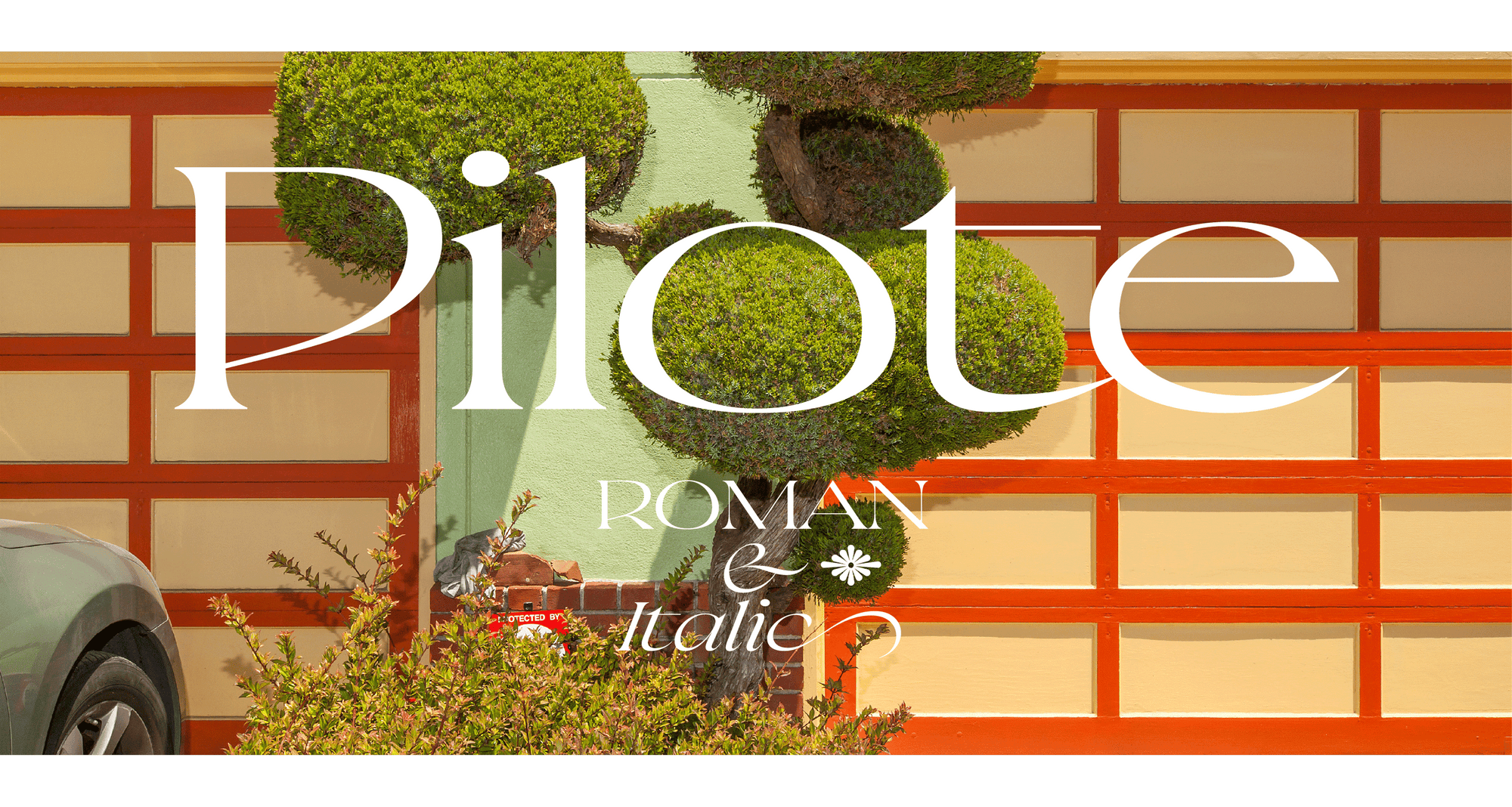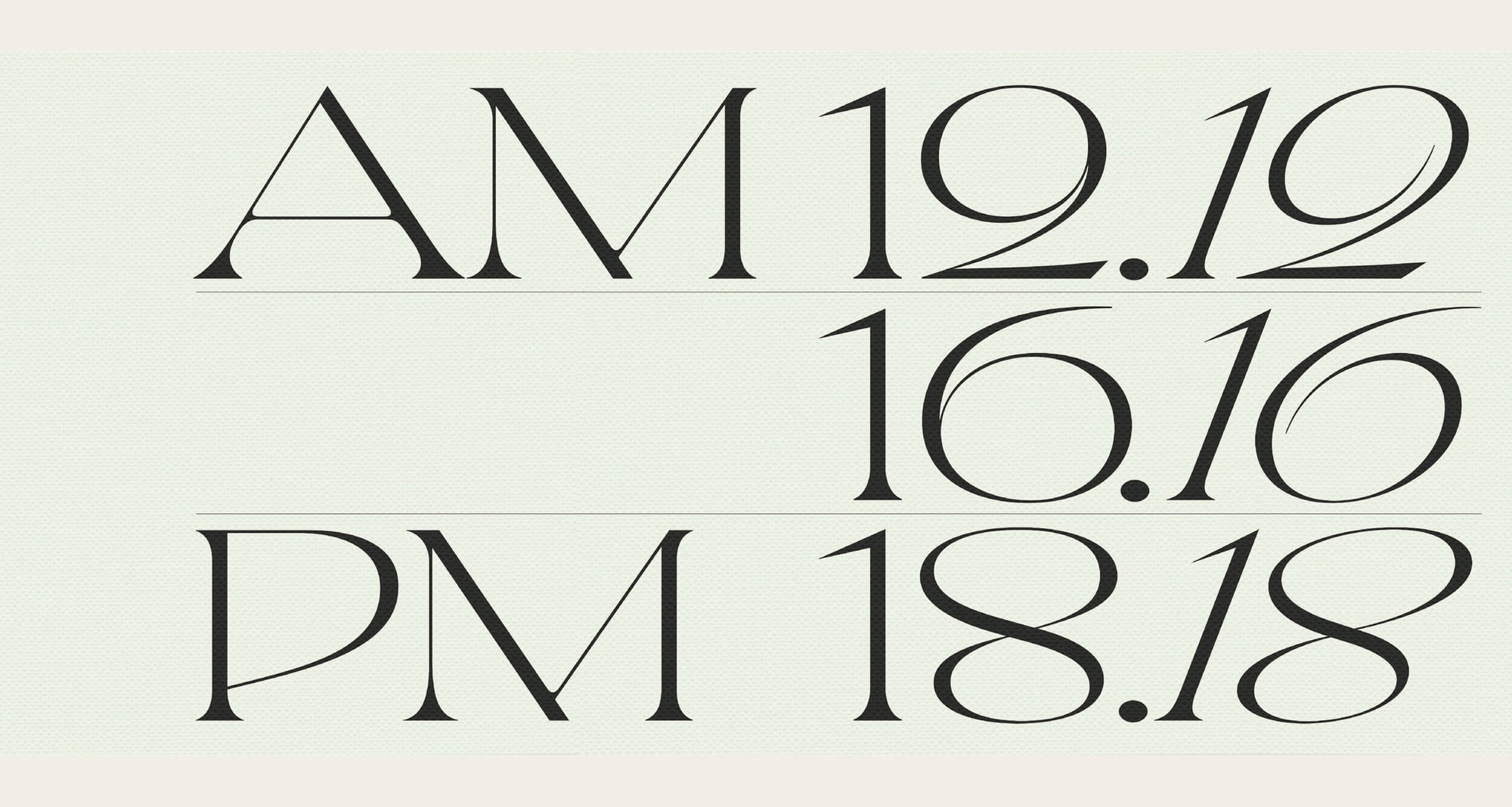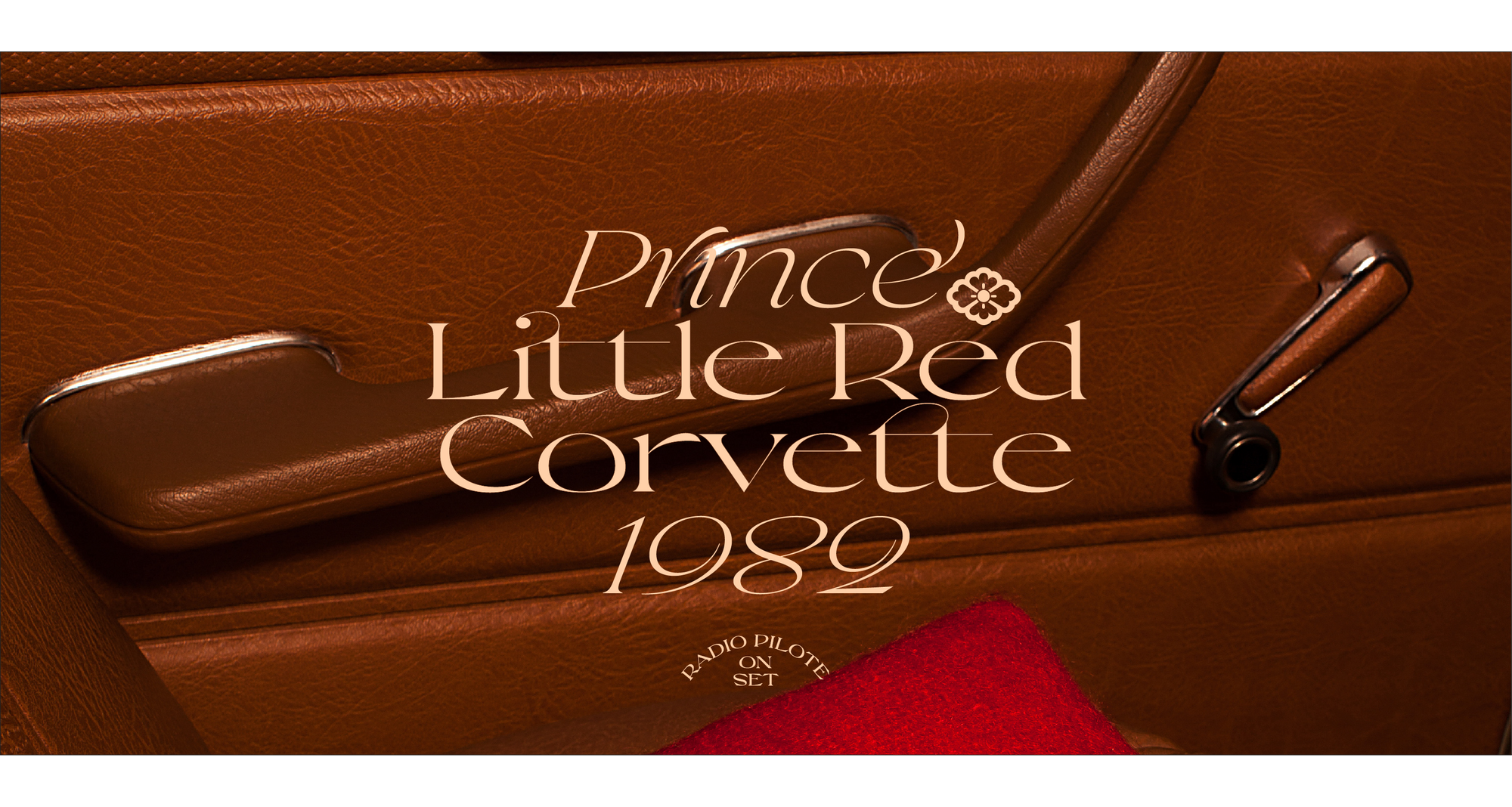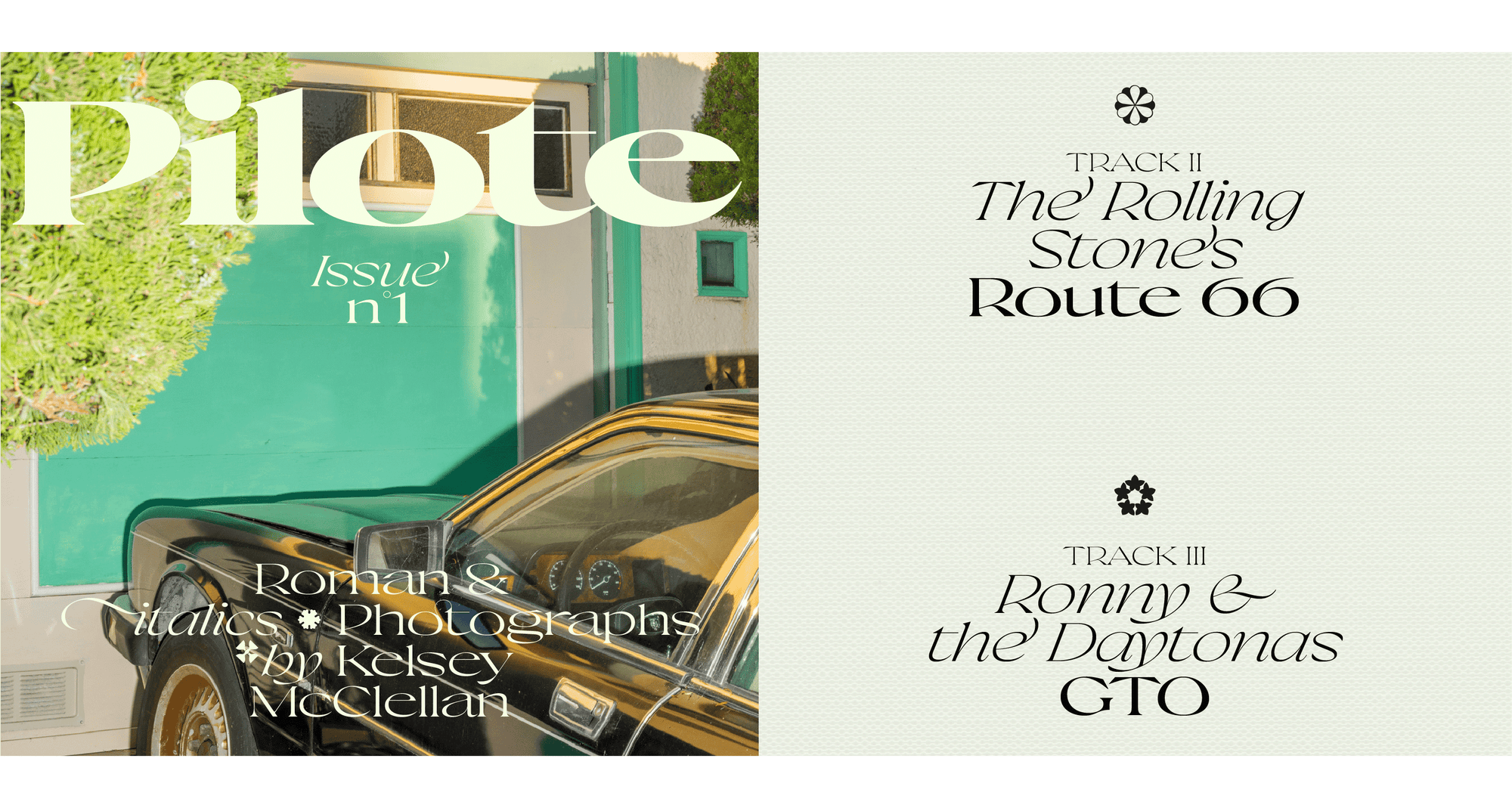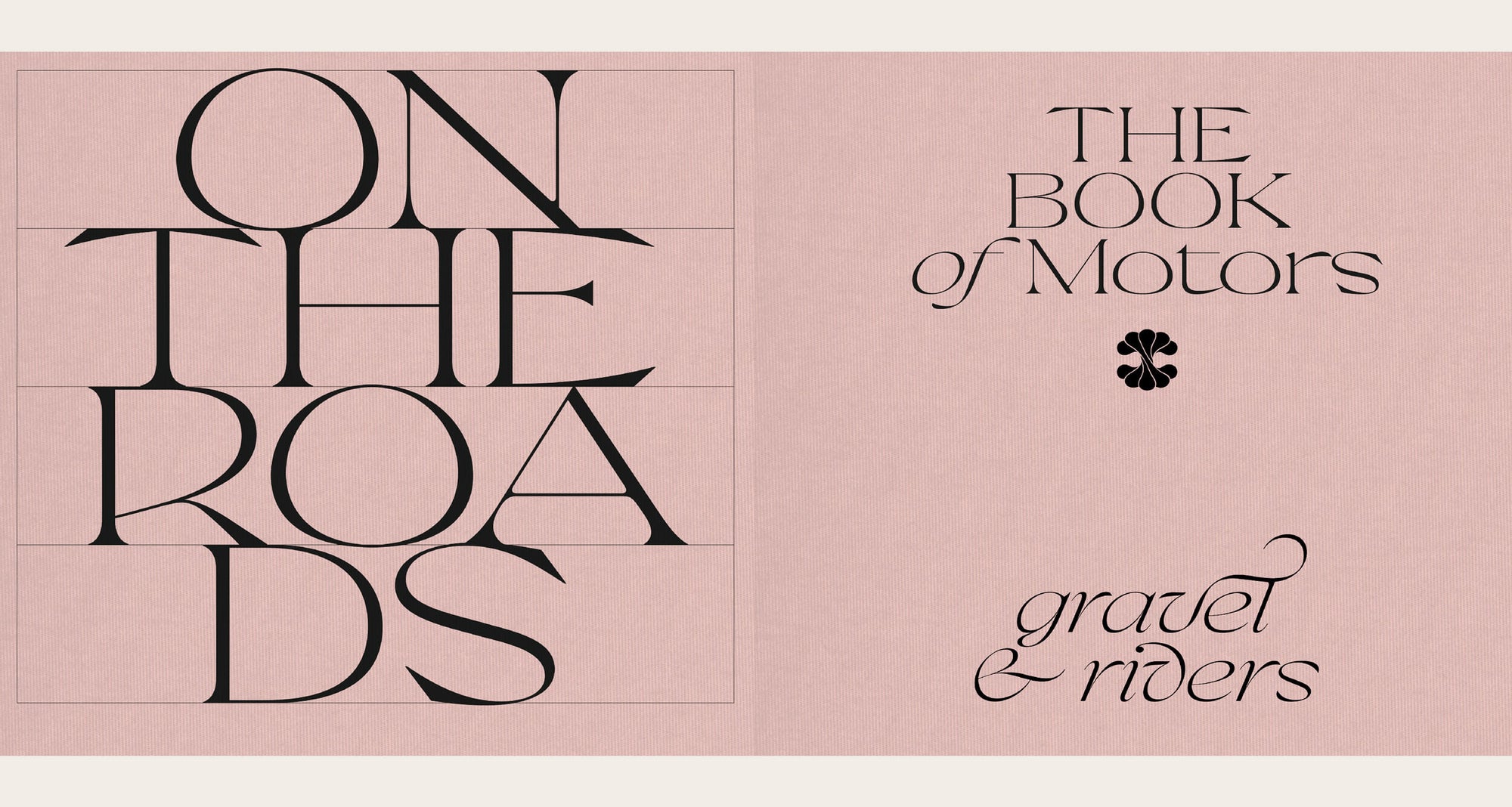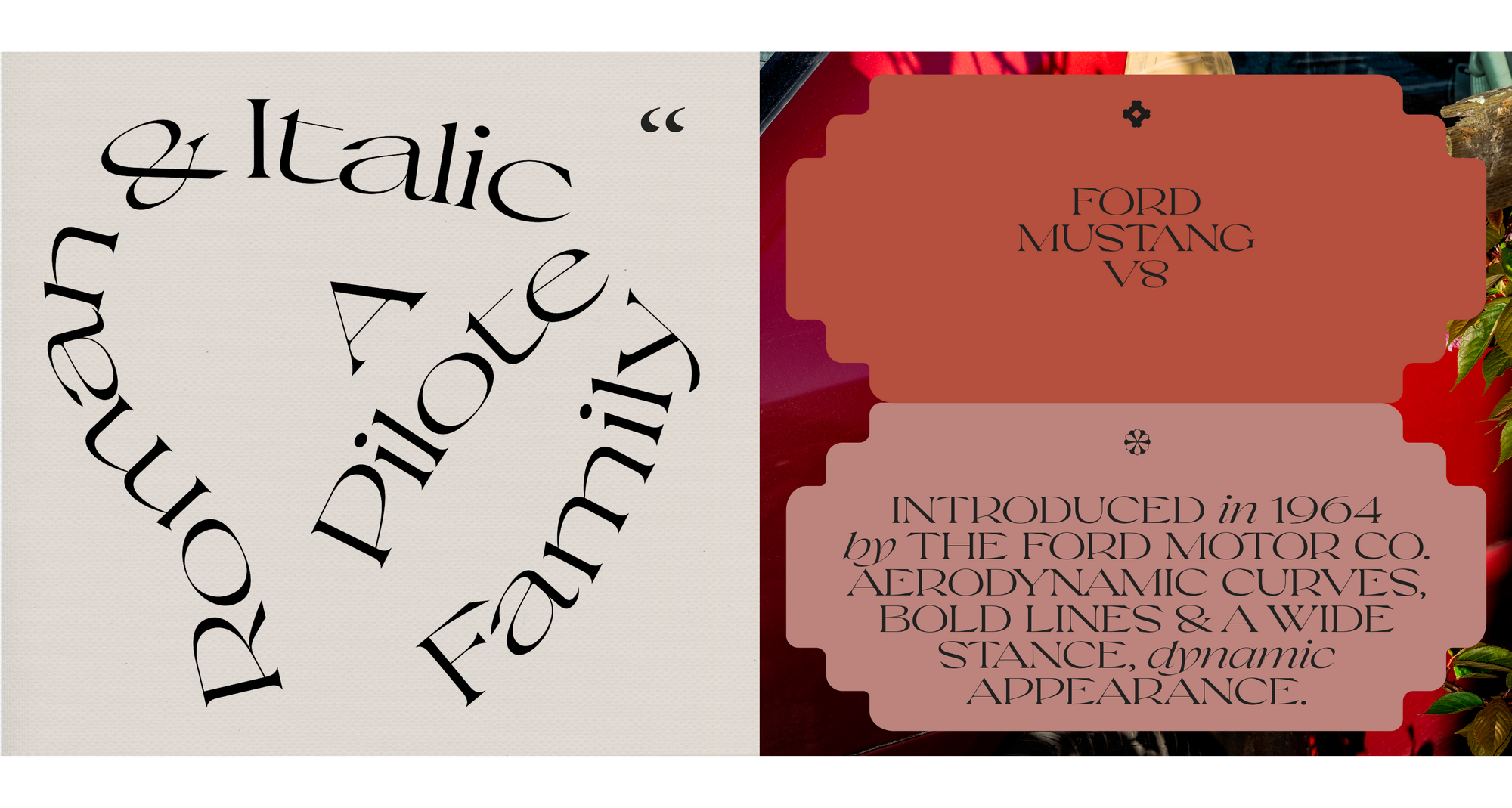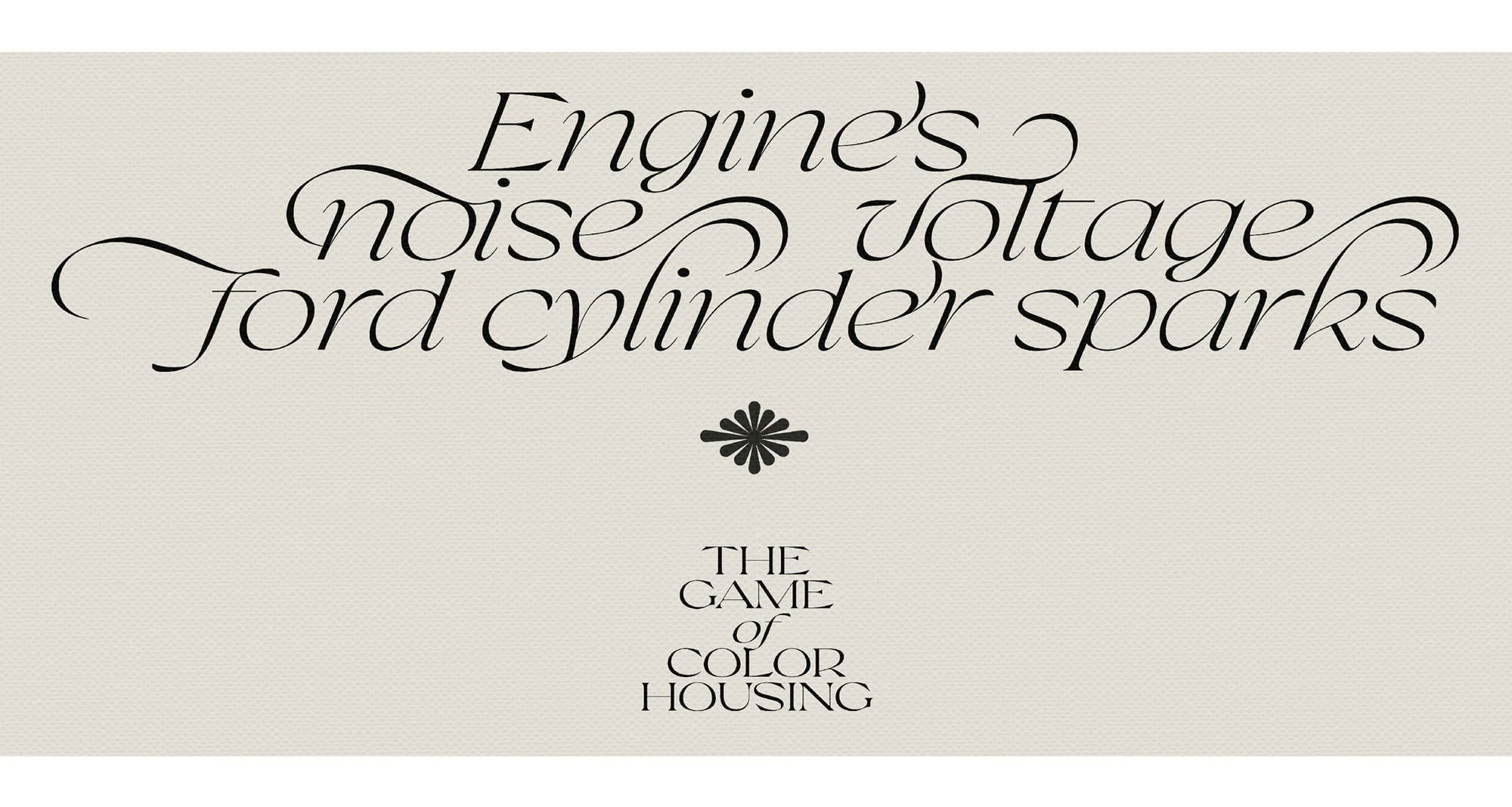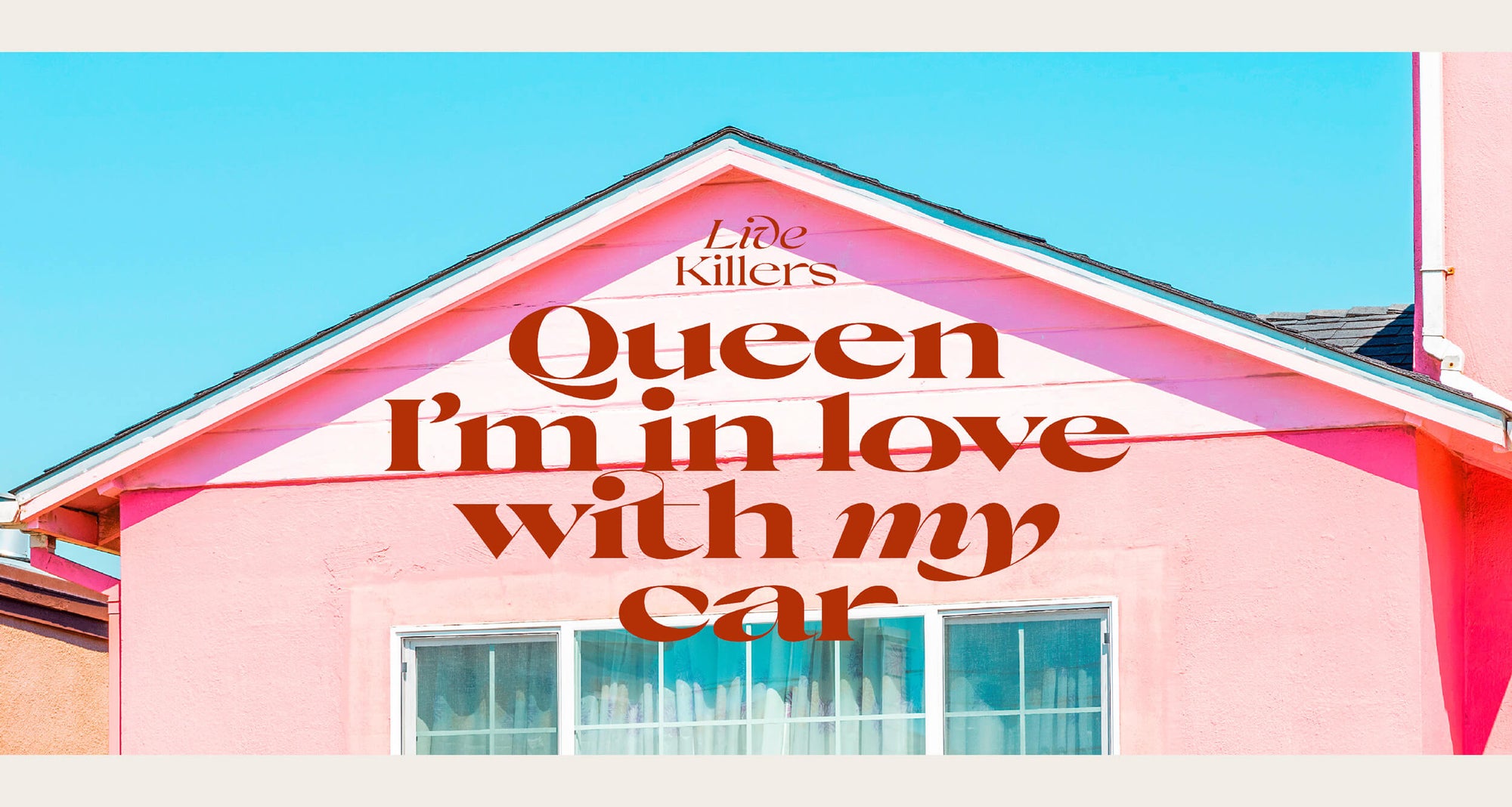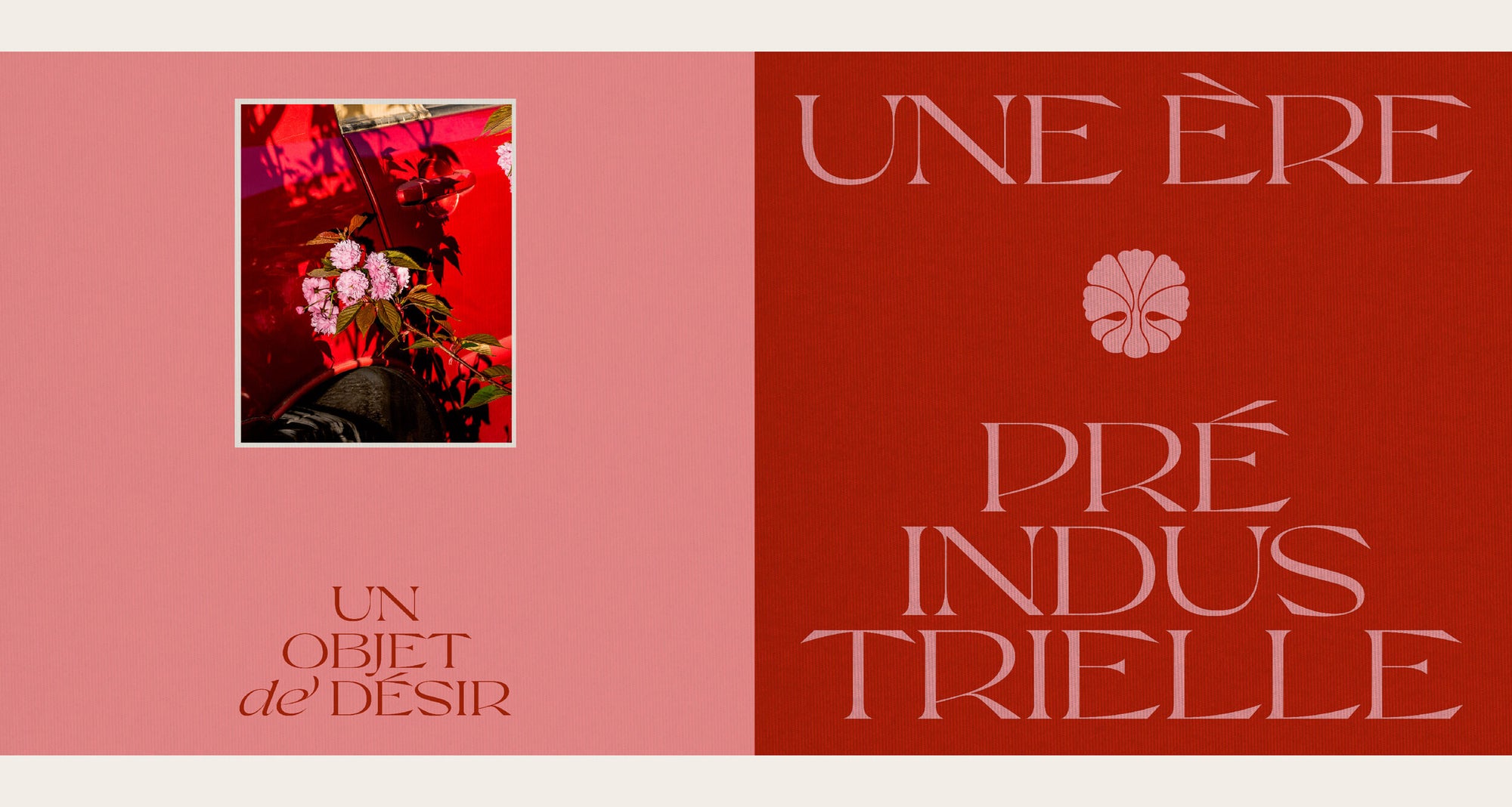
Pilote
• Display - 10 weights
Light, Regular, Medium, Bold, Black, Light Italic, Regular Italic, Medium Italic, Bold Italic, Black Italic
• Release
2025
• Designer
Jérémy Schneider
Pilot might just be a font for devoted fashion enthusiasts. This font was born from the desire to create a contemporary extended typeface of undeniable elegance. We picture it perfectly fitting into fashion editorials and photo shoots. But there’s no way it’s a one-season wonder: Pilot was designed to stand the test of time. Like timeless wardrobe staples, every detail has been carefully designed to achieve a high sense of balance, equally blending both feminine and masculine accents. The roman style embodies Pilot’s stately side: mature, elegant, and forward-thinking. The italic, on the other hand, is more experimental, even boldly expressive. In fact, this is our first deep dive into italic design—and we didn’t hold back. Pilot is a serif display font, available in 10 styles, from light to black, in both roman and italic. It stands out for its generosity, both in the essence of its design and in the breadth of its glyphset and specific features. It combines angular, pointed ends with smooth, comfortable curves and fluid transitions in the diagonals. The glyphset has been enhanced with a wide range of ligatures, alternates, and expressive swashes, as well as a set of 77 symbols and 18 stylized arrows.
Opentype features
Accents
Ligatures
Arrows
Italic Swashes
Ligature
Alternates
Italic ligatures